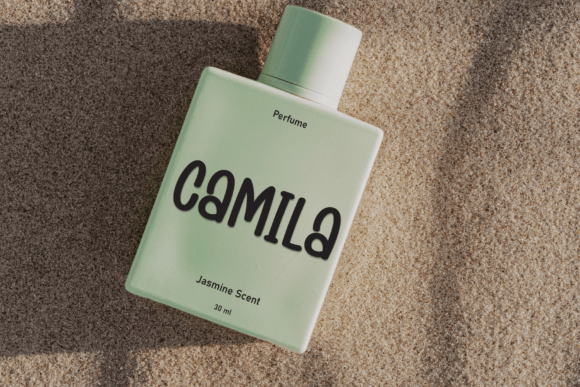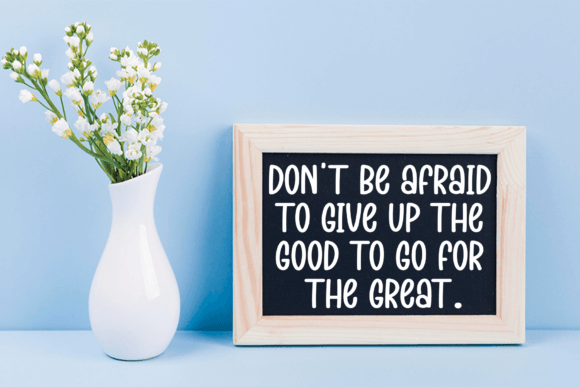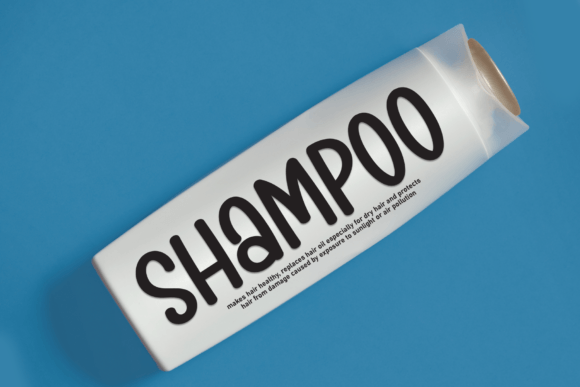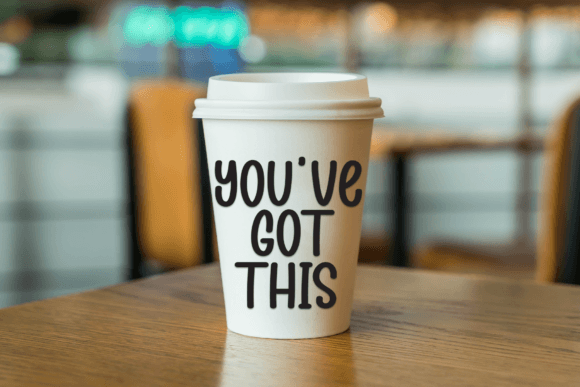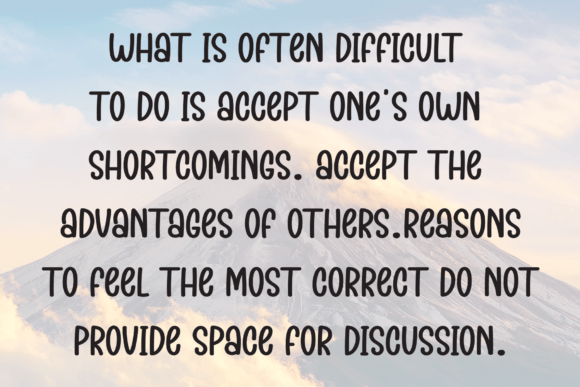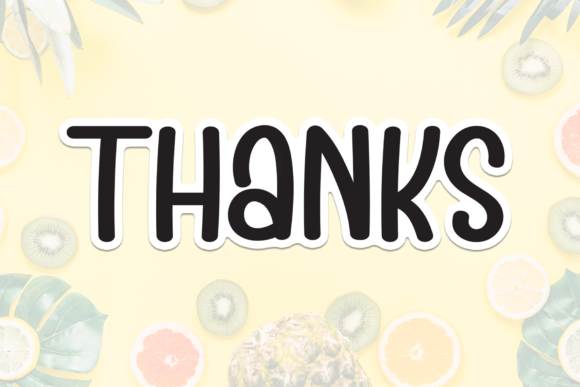
Fruit Days Font: The Sweet and Friendly Handwritten Font for Your Design Needs
Are you a designer or crafter looking for a font that can add a touch of sweetness and friendliness to your projects? Look no further than Fruit Days Font! This beautiful handwritten font is perfect for a wide range of designs, from invitations and greeting cards to branding and packaging. In this article, we’ll take a closer look at Fruit Days Font and explore its features, benefits, and uses.
What is Fruit Days Font?
Fruit Days Font is a sweet and friendly handwritten font that is designed to bring a personal touch to your designs. Its natural and unique style makes it incredibly fitting to a large pool of designs, from playful and whimsical to elegant and sophisticated. The font is perfect for designers and crafters who want to add a human touch to their projects and make them stand out from the crowd.
Features of Fruit Days Font
Fruit Days Font has several features that make it a great choice for designers and crafters. Some of its key features include:
- Handwritten style: Fruit Days Font has a beautiful handwritten style that is perfect for adding a personal touch to your designs.
- Natural and unique: The font has a natural and unique style that makes it stand out from other fonts.
- Versatile: Fruit Days Font is incredibly versatile and can be used for a wide range of designs, from invitations and greeting cards to branding and packaging.
- Easy to read: The font is easy to read, making it perfect for designs that require a lot of text.
Benefits of Using Fruit Days Font
There are several benefits to using Fruit Days Font in your designs. Some of the benefits include:
- Adds a personal touch: Fruit Days Font adds a personal touch to your designs, making them more relatable and engaging.
- Stand out from the crowd: The font’s unique style helps your designs stand out from the crowd and grab attention.
- Perfect for a wide range of designs: Fruit Days Font is perfect for a wide range of designs, from playful and whimsical to elegant and sophisticated.
Uses of Fruit Days Font
Fruit Days Font can be used for a wide range of designs, including:
- Invitations: The font is perfect for invitations, such as birthday party invitations, wedding invitations, and baby shower invitations.
- Greeting cards: Fruit Days Font is great for greeting cards, such as birthday cards, Christmas cards, and thank-you cards.
- Branding: The font can be used for branding, such as logos, business cards, and letterheads.
- Packaging: Fruit Days Font is perfect for packaging, such as labels, tags, and product packaging.
Tips for Using Fruit Days Font
Here are some tips for using Fruit Days Font in your designs:
- Use it with a playful color scheme: Fruit Days Font looks great with a playful color scheme, such as bright and bold colors.
- Pair it with a simple background: The font looks great with a simple background, such as a white or light-colored background.
- Experiment with different sizes: Fruit Days Font looks great in different sizes, from large and bold to small and delicate.
Fruit Days Font is a sweet and friendly handwritten font that is perfect for designers and crafters who want to add a personal touch to their projects. Its natural and unique style makes it incredibly fitting to a large pool of designs, and its versatility makes it perfect for a wide range of projects. With its ease of use and flexibility, Fruit Days Font is a great choice for anyone looking to add a touch of sweetness and friendliness to their designs.